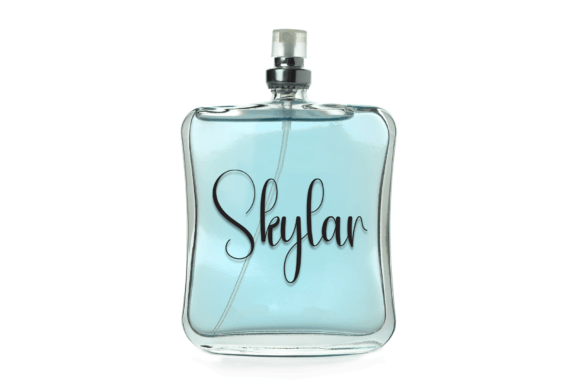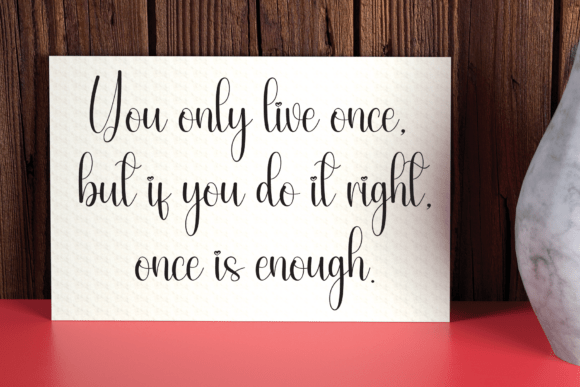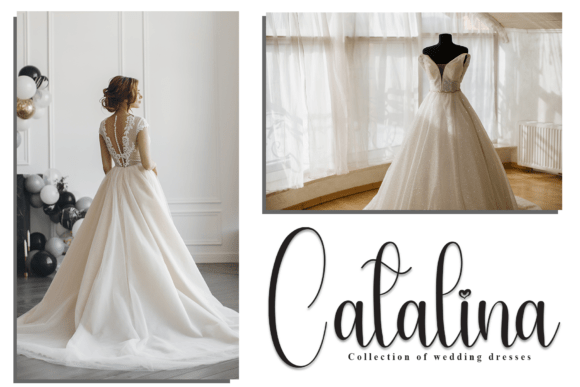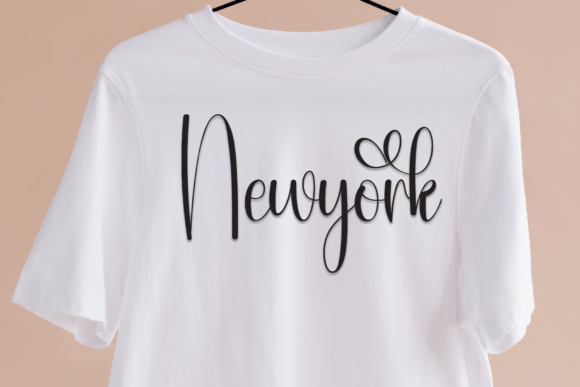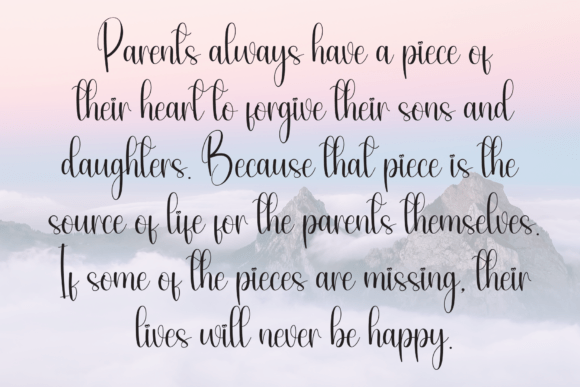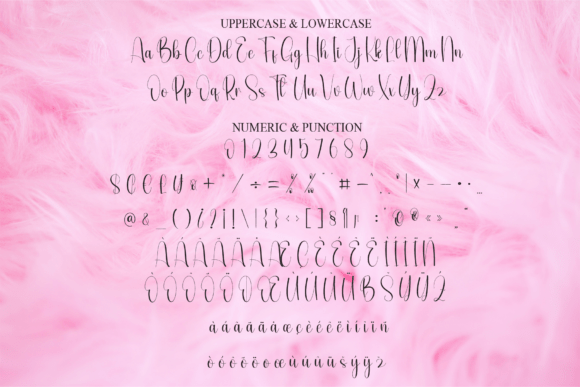
Introducing Barbie Font: Elevate Your Designs with Modern Elegance and Playfulness
Are you on the hunt for a font that embodies the perfect blend of sophistication and whimsy? Look no further than the Barbie Font, a stylish handwritten script font that is taking the design world by storm. This beautiful typeface seamlessly merges modern elegance with a playful touch, making it an ideal choice for designers and crafters looking to add a personal feel to their projects.
The Characteristics of Barbie Font
So, what sets the Barbie Font apart from other fonts? Here are a few key characteristics that make it a standout:
- Fluid Strokes: The Barbie Font features fluid strokes that flow effortlessly across the page, creating a sense of movement and energy.
- Charming Curves: The font’s charming curves add a touch of playfulness and whimsy, making it perfect for designs that require a bit of personality.
- Modern Elegance: Despite its playful nature, the Barbie Font exudes modern elegance, making it suitable for a wide range of design applications.
Uses for Barbie Font
The Barbie Font is incredibly versatile, making it perfect for a variety of design projects. Here are a few ideas to get you started:
- Logos: Create a stunning logo for your business or brand with the Barbie Font. Its modern elegance and playful touch make it perfect for companies that want to stand out from the crowd.
- Packaging: Add a personal touch to your product packaging with the Barbie Font. Its fluid strokes and charming curves make it perfect for labels, tags, and other packaging materials.
- Invitations: Make your invitations shine with the Barbie Font. Its elegant and playful nature makes it perfect for weddings, birthday parties, and other special occasions.
Benefits of Using Barbie Font
So, why should you choose the Barbie Font for your design projects? Here are a few benefits to consider:
- Warmth: The Barbie Font adds a warm and personal touch to any design, making it perfect for projects that require a bit of personality.
- Sophistication: Despite its playful nature, the Barbie Font exudes sophistication and elegance, making it suitable for high-end designs.
- Creativity: The Barbie Font is the perfect choice for designers and crafters who want to add a bit of creativity to their projects.
Tips for Using Barbie Font
Here are a few tips to keep in mind when using the Barbie Font:
- Pair it with other fonts: The Barbie Font pairs perfectly with other fonts, such as sans-serif fonts or serif fonts. Experiment with different combinations to find the perfect look for your design.
- Use it in moderation: While the Barbie Font is beautiful, it can be overwhelming if used excessively. Use it in moderation to create a balanced design.
- Experiment with colors: The Barbie Font looks stunning in a variety of colors. Experiment with different colors to find the perfect shade for your design.
In conclusion, the Barbie Font is a stylish handwritten script font that is perfect for designers and crafters looking to add a personal touch to their projects. Its fluid strokes, charming curves, and modern elegance make it suitable for a wide range of design applications, from logos and packaging to invitations and more. With its warmth, sophistication, and creativity, the Barbie Font is sure to become a favorite in your design arsenal.